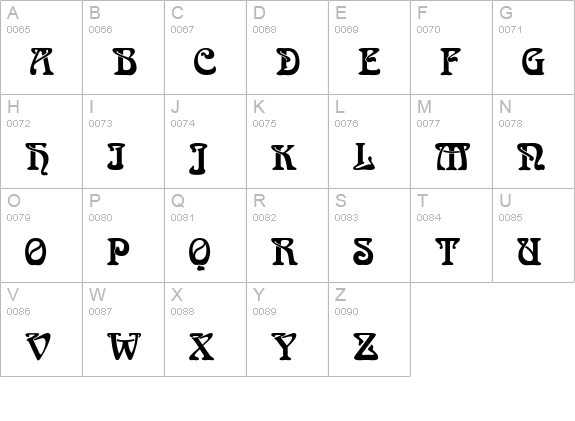
SlowGinFizzing-ExtraBold Font Details
SlowGinFizzing-ExtraBold is an extra-heavy, attention-grabbing variant in the SlowGinFizzing typeface family \xE2\x80\x94 well suited to high-impact headlines, posters, and bold branding.
SlowGinFizzing-ExtraBold is a visually striking and attention-grabbing font that is sure to make a bold statement in any design project. With its unique combination of slow and gin-inspired aesthetics, this font stands out in both digital and print mediums. The ExtraBold weight of SlowGinFizzing adds an extra layer of intensity and strength to the already eye-catching design. Its thick and pronounced letterforms exude confidence and command attention, making it perfect for headlines, logos, and any other design element that needs to make a strong impact. What sets SlowGinFizzing-ExtraBold apart is not just its striking appearance, but also its versatility. Whether you're designing for a fashion brand, a tech startup, or a creative agency, this font adapts effortlessly to different contexts, adding a touch of sophistication and modernity to your project. And the best part? SlowGinFizzing-ExtraBold is freely available to download at FontsMarket.com. This means that you can add this impressive font to your collection without any cost, making it a valuable asset for both professional designers and hobbyists alike. So, if you're looking for a font that combines contemporary aesthetics with a touch of daring, SlowGinFizzing-ExtraBold is the perfect choice. Download it now from FontsMarket.com and let your designs flourish with its captivating presence.